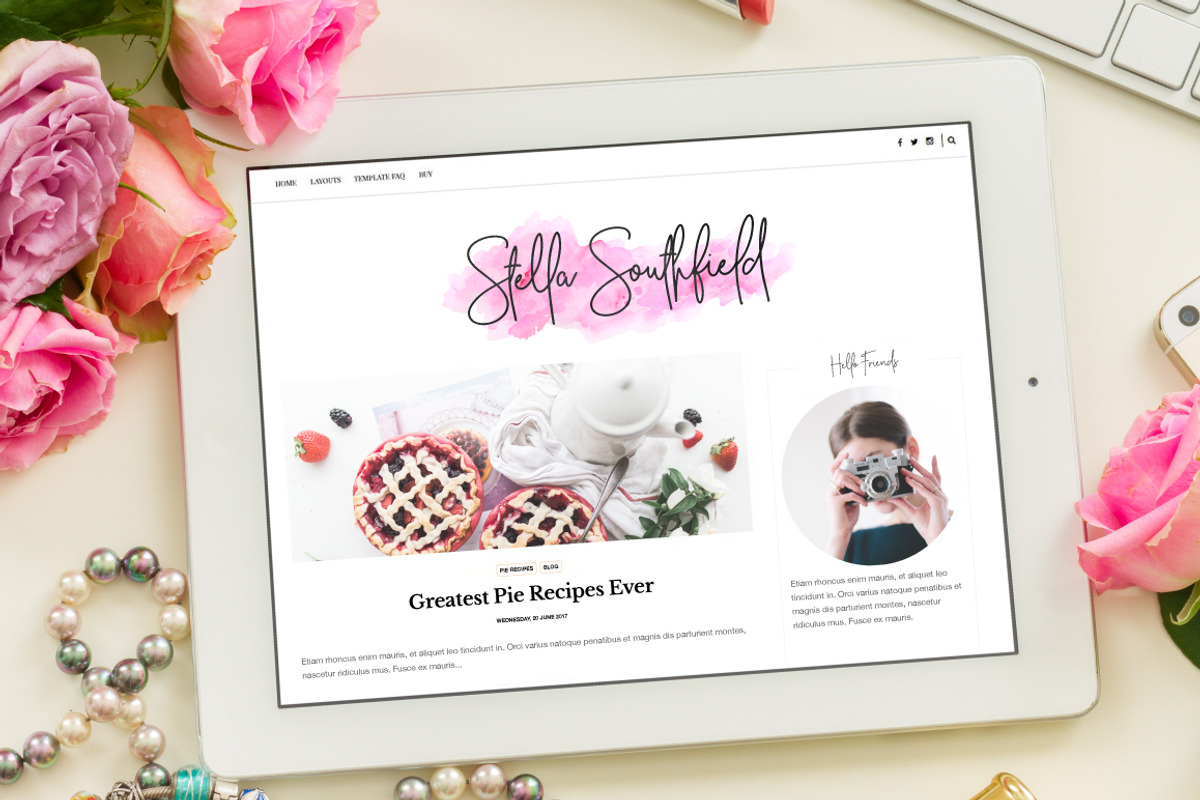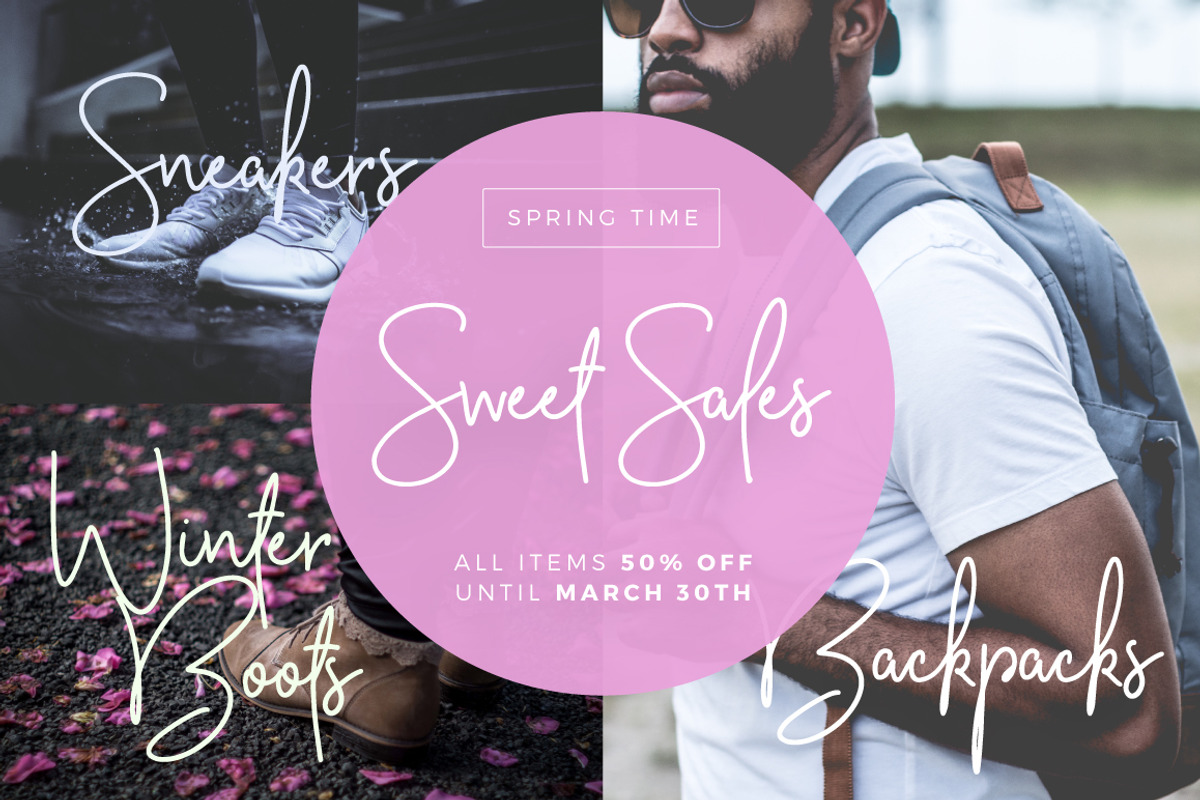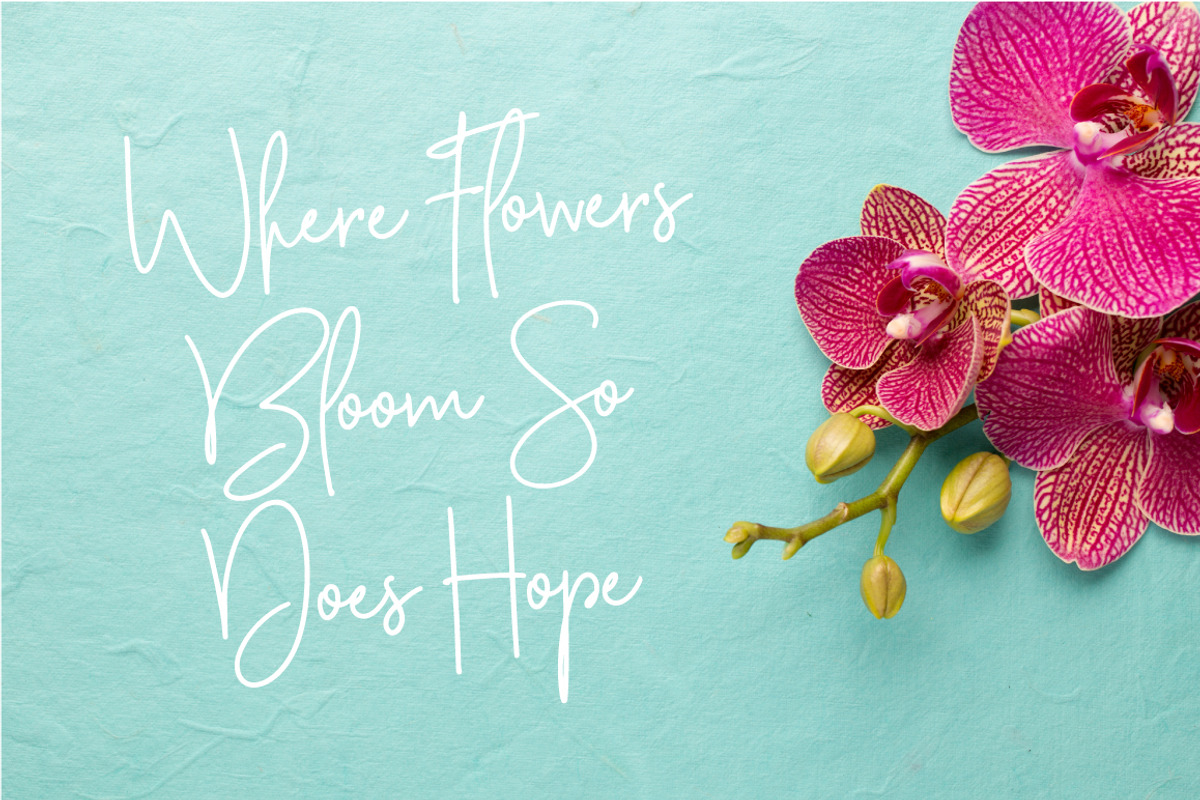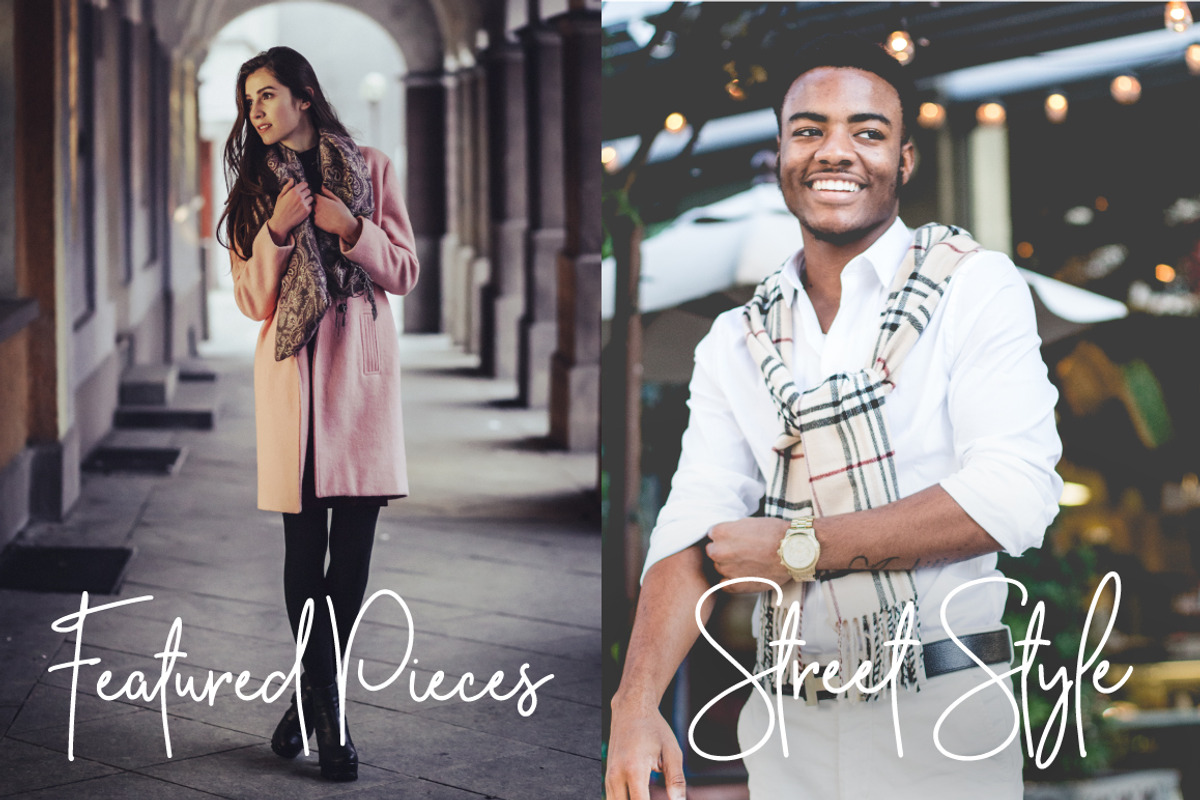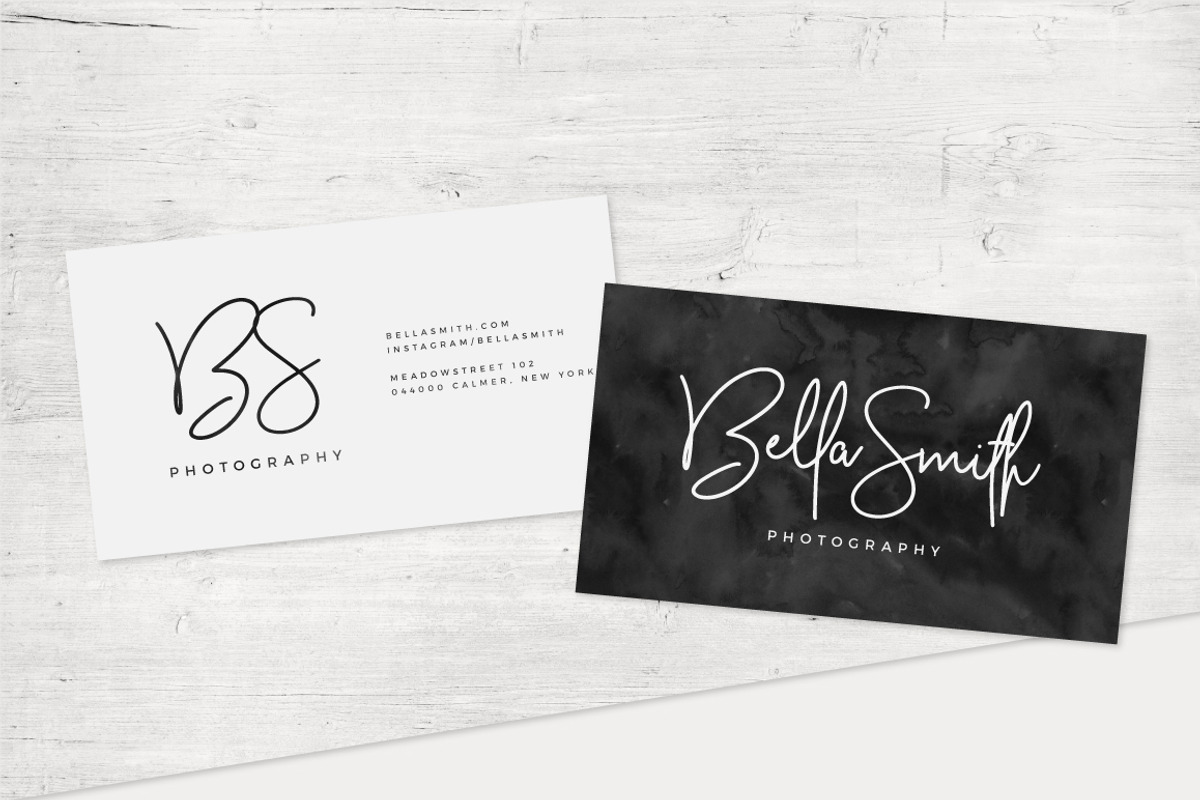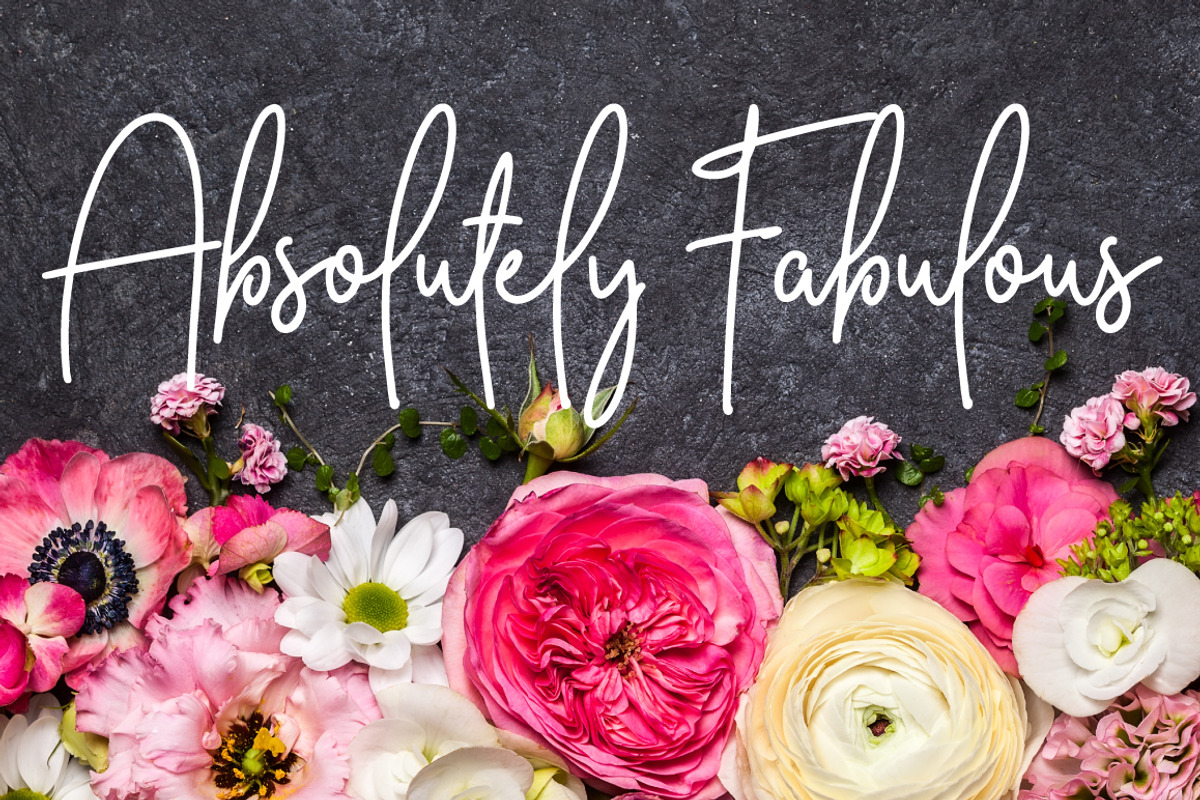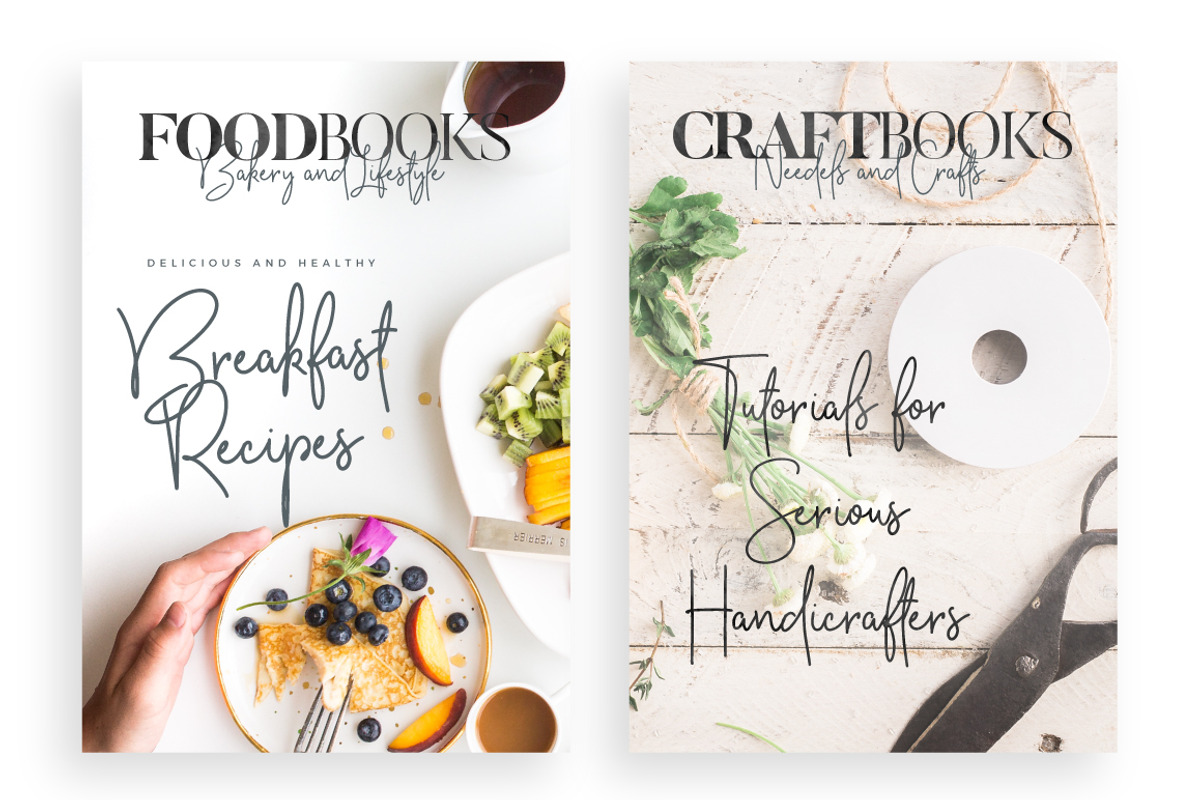
Rosefield Typeface
Rosefield Typeface by Mats-Peter Forss is a font selected for branding, posters, packaging, typography.
- It's a soft-edged font with full alternates (upper and lowercase).
- Alternates for upper and lowercase characters.
- ROSEFIELD TYPEFACE ALT - Alternates for upper and lowercase characters.
- Rosefield Regular
- Rosefield Alt
Why Rosefield Typeface is worth a look
Rosefield Typeface by Mats-Peter Forss fits naturally into Branding, posters, packaging, typography.